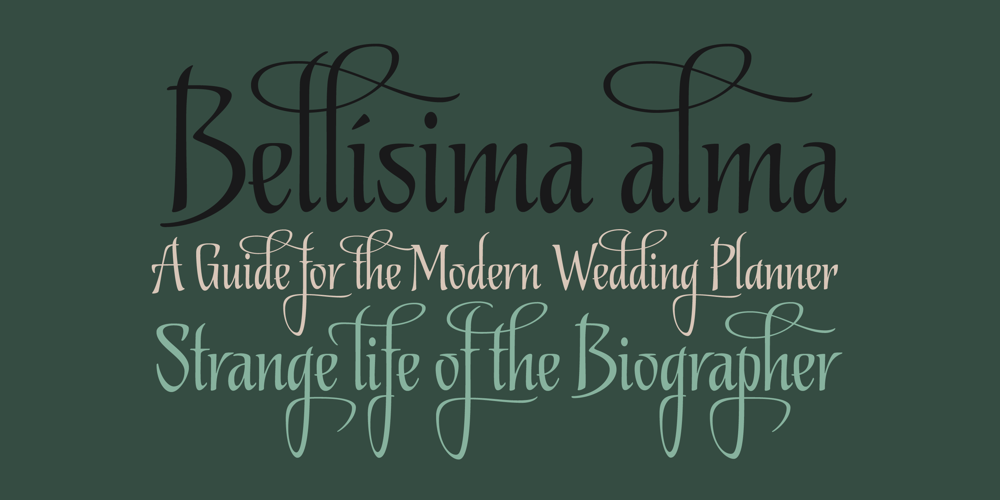
Biographer Font Family was designed by Alejandro Paul, Angel Koziupa and published by Sudtipos. Biographer contains 1 styles and family package options. Biographer is a mild upright script drawn by Angel Koziupa, with Alejandro Paul art directing and producing. Elegant but quite reminiscent of roman forms and proportions, Biographer keeps the calligraphy mostly toned down, but its ascenders and descenders occasionally flare out in final swashy confidence. As usual with Sudtipos fonts, alternates are plenty and the personal touch is never amiss. Biographer is great for women’s lit and poetry book covers, as well as tame packaging of products where conveying comfort and peace of mind is of importance. An extensive range of languages are covered (Western and Eastern European, Baltic, Turkish, Maltese and Celtic).